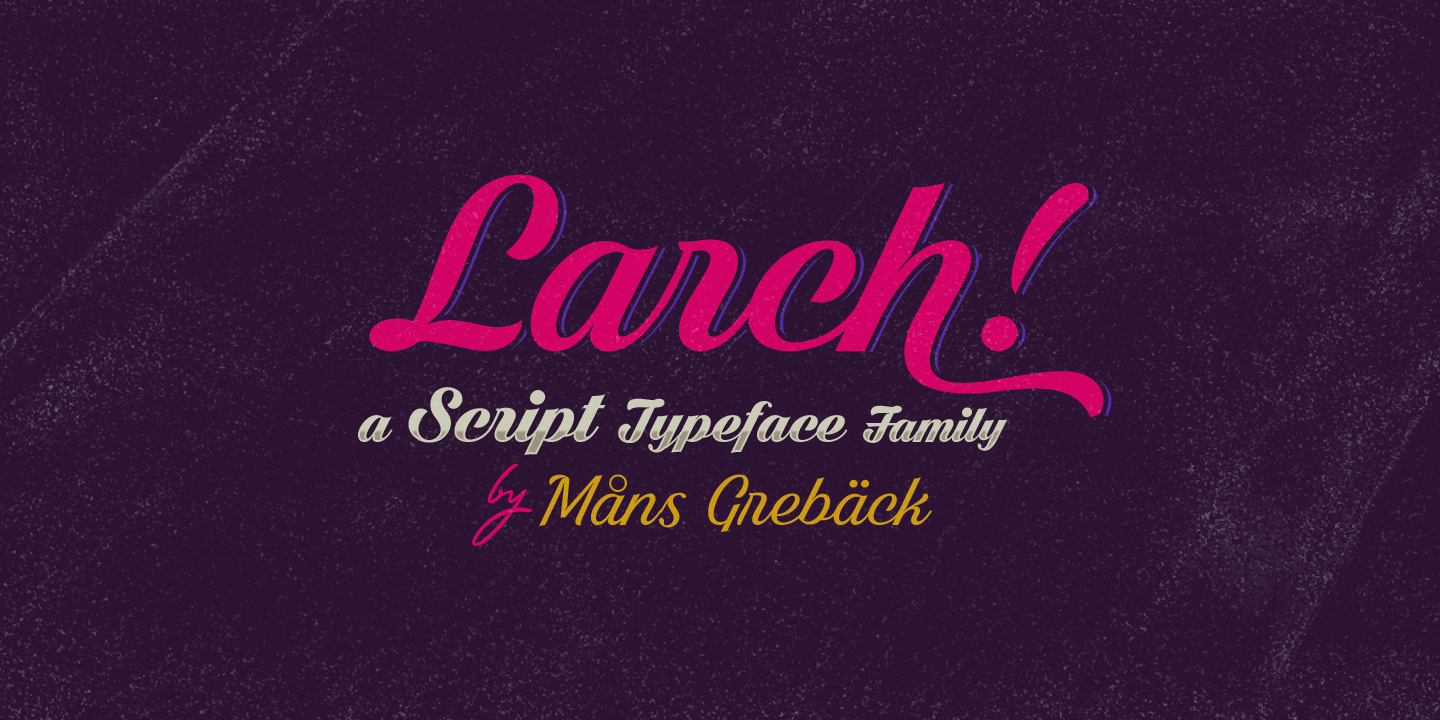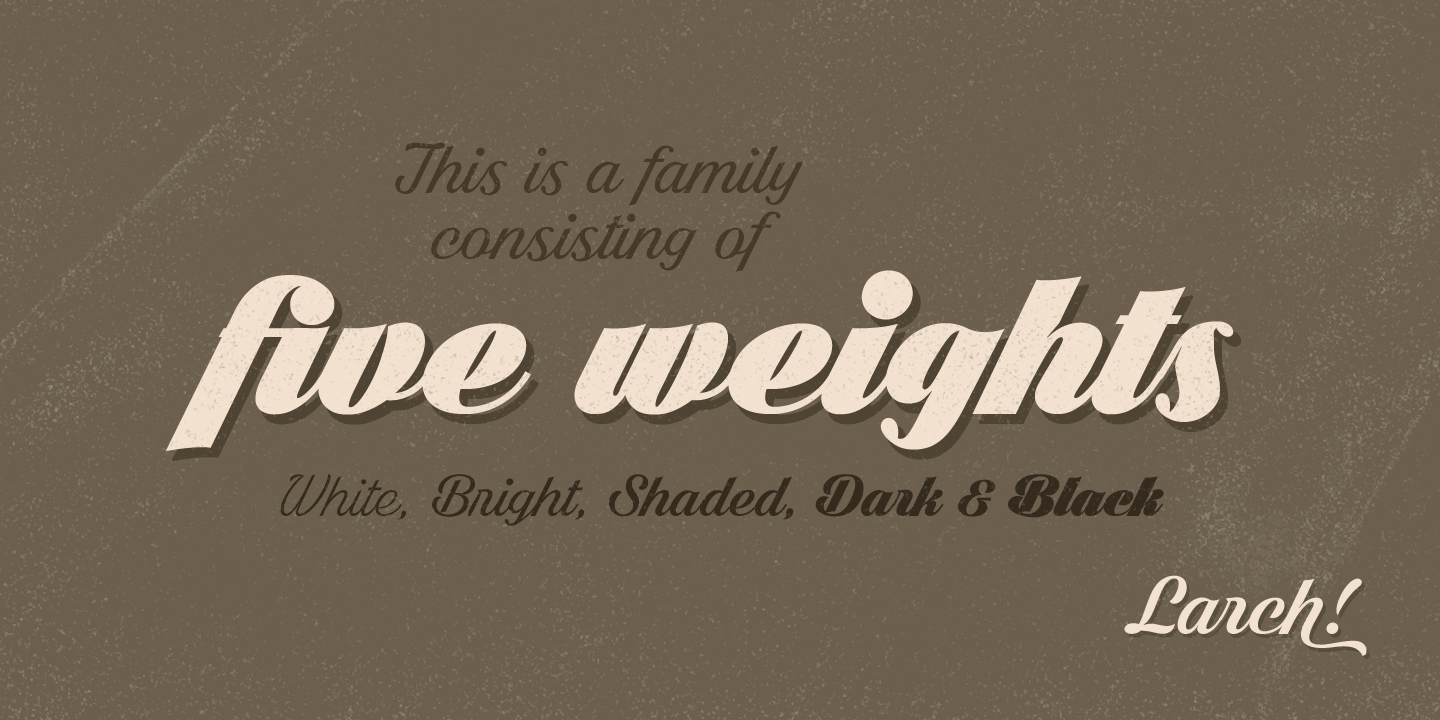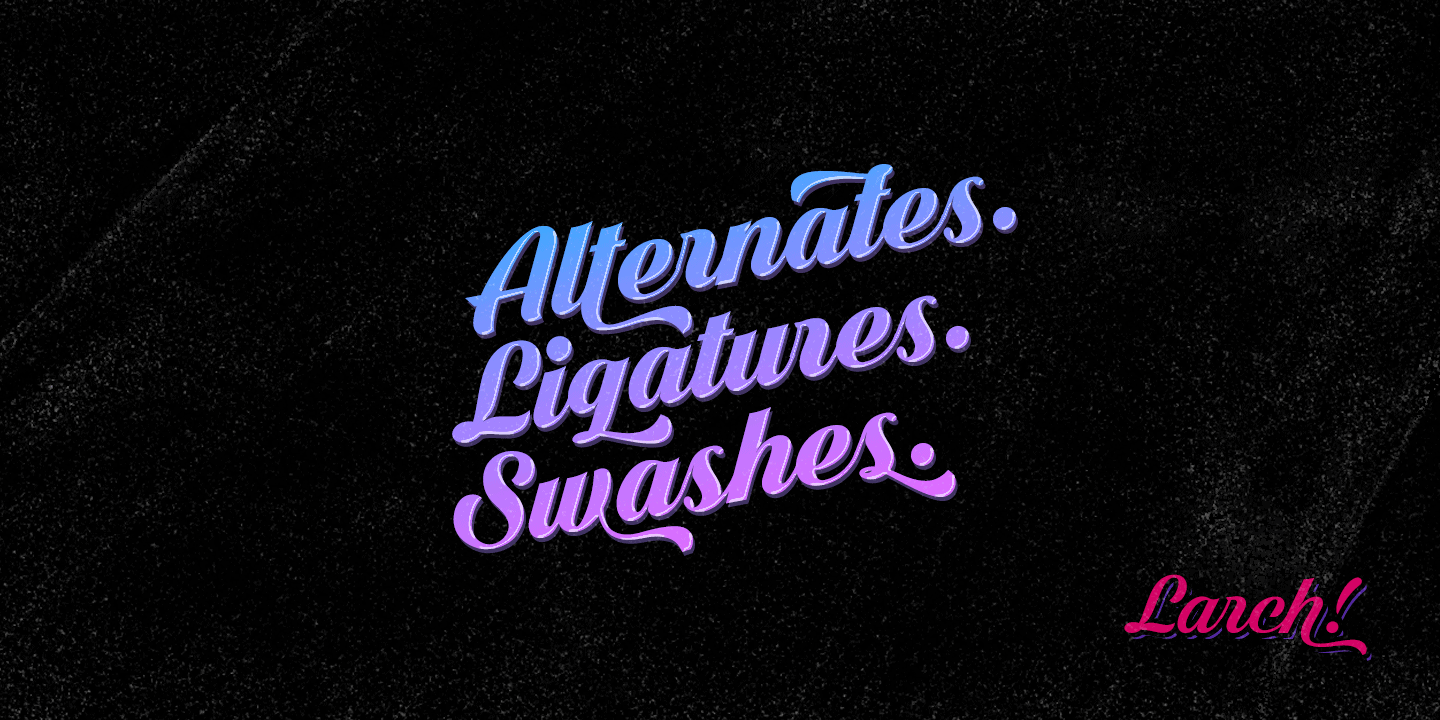
Larch
Larch is a clear and crisp high quality script typeface. It consists of five weights: White Larch, Bright Larch, Shaded Larch, Dark Larch & Black Larch. Each style is working great separately, but they make the perfect combination together.